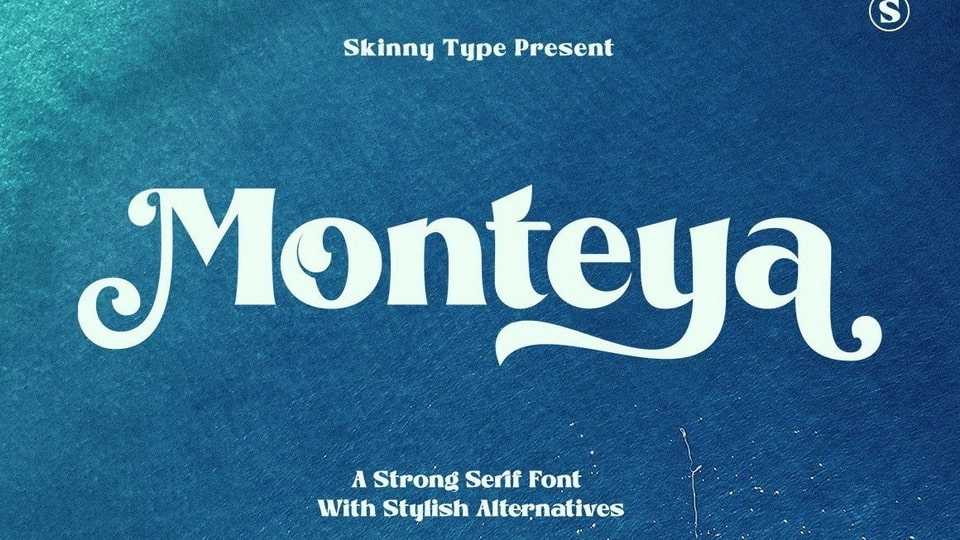
Download Monteya font, a modern serif typeface with vintage charm, fashion look, and retro yet modern style. Monteya font will add a touch of luxury and style to your branding and logo design projects.
Designer: Skinny Type